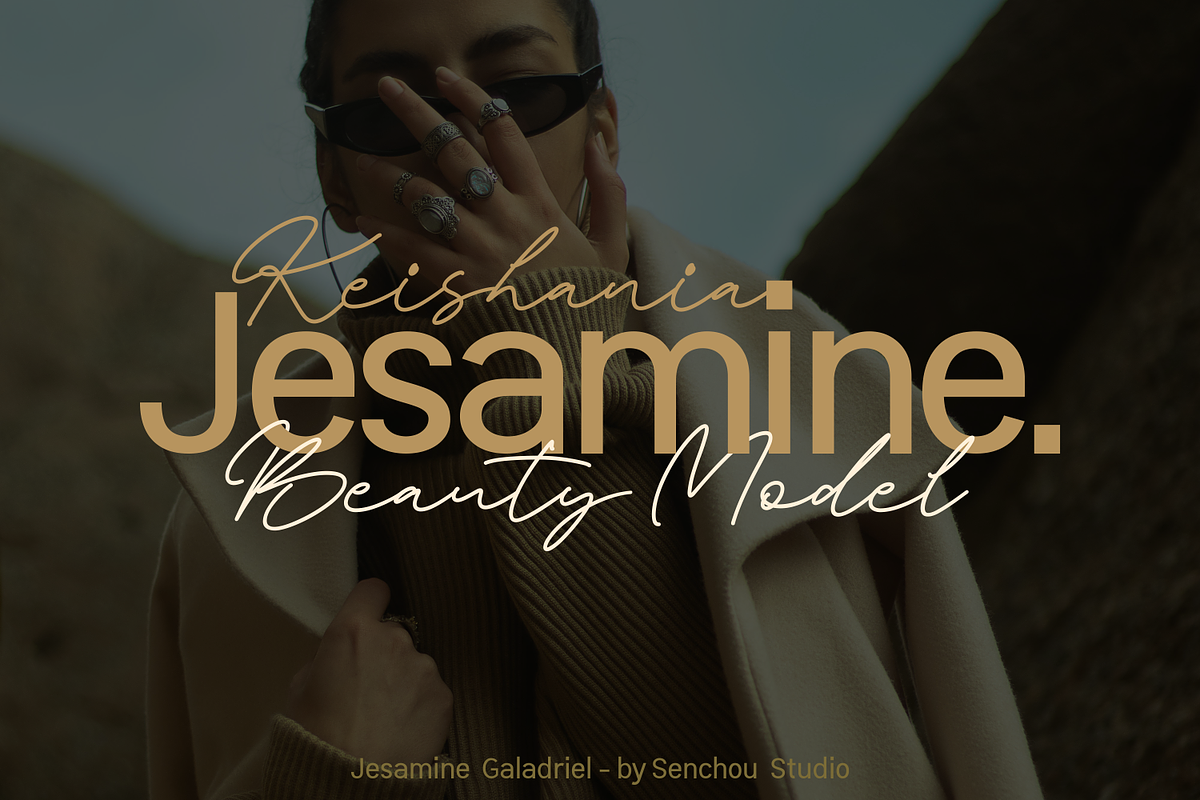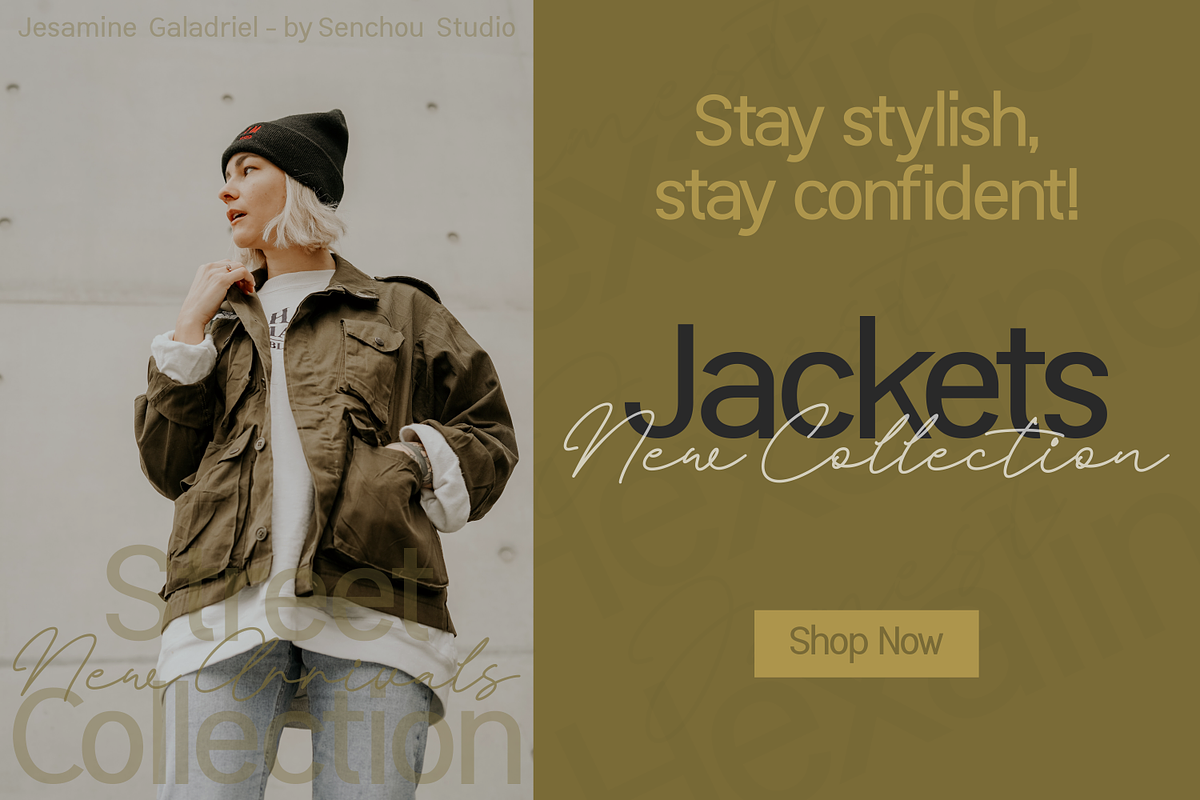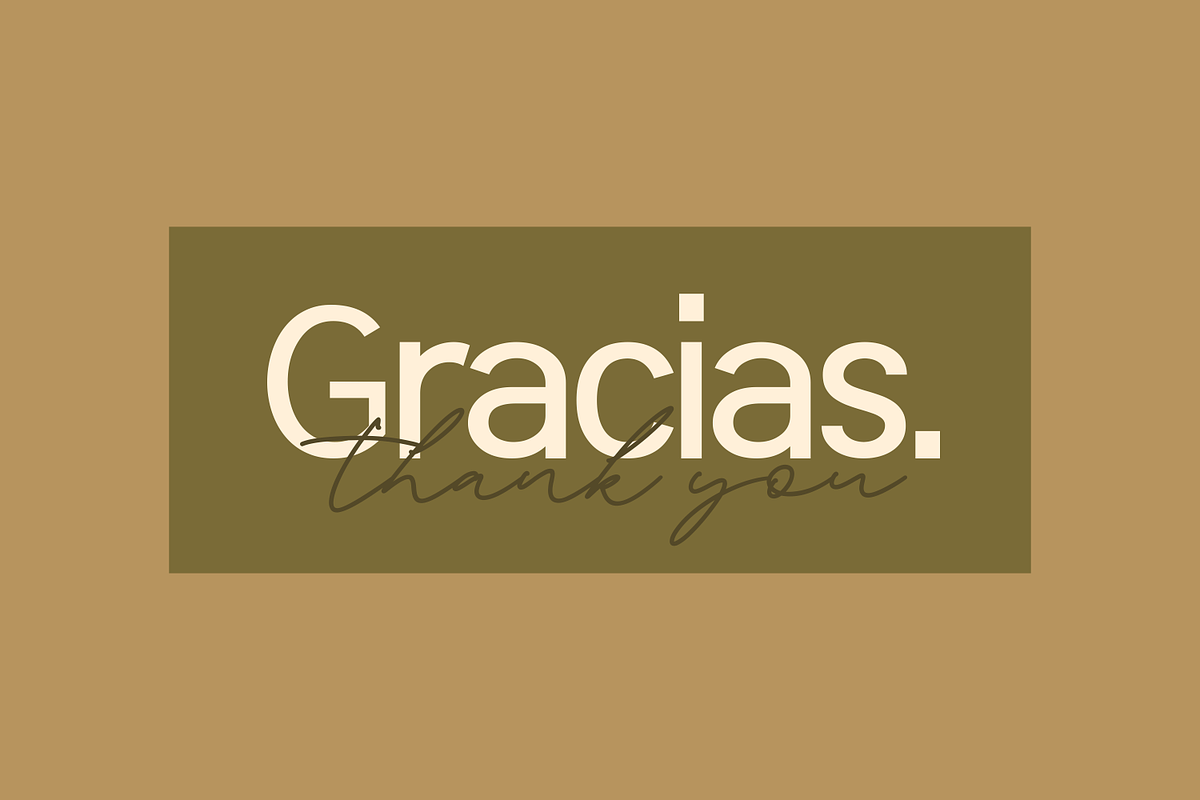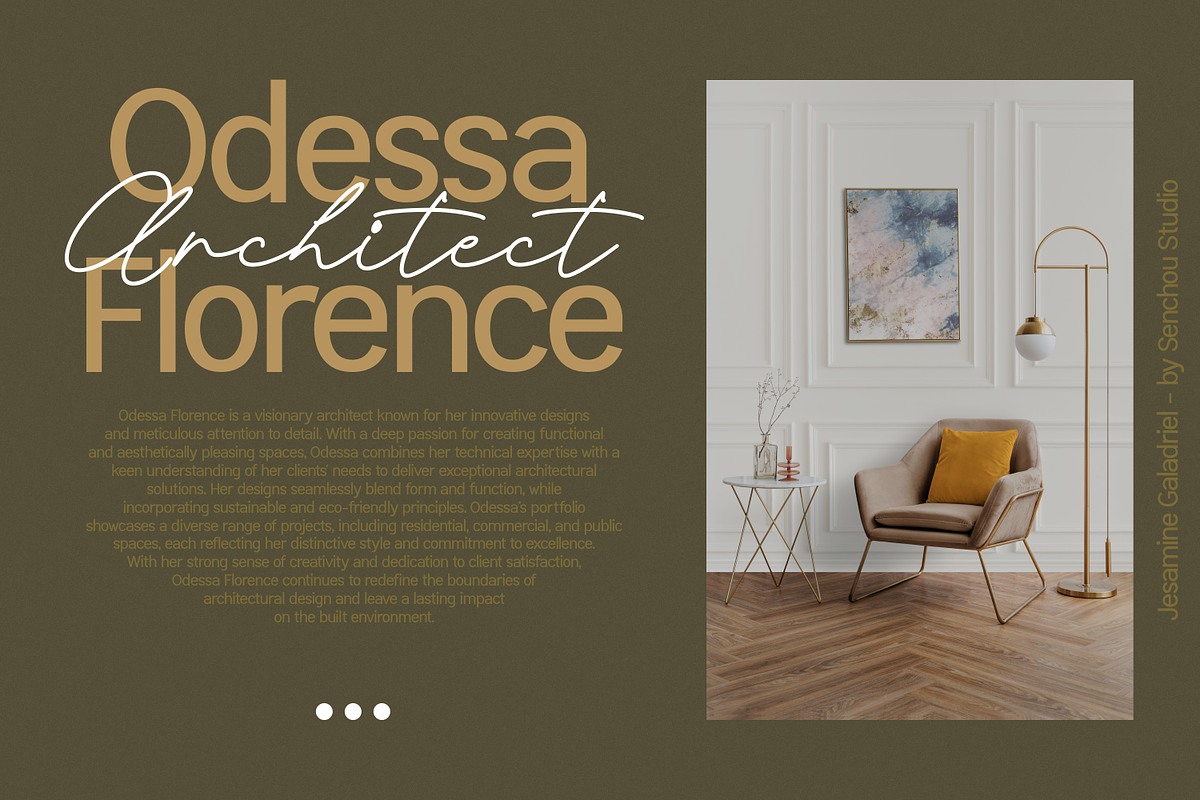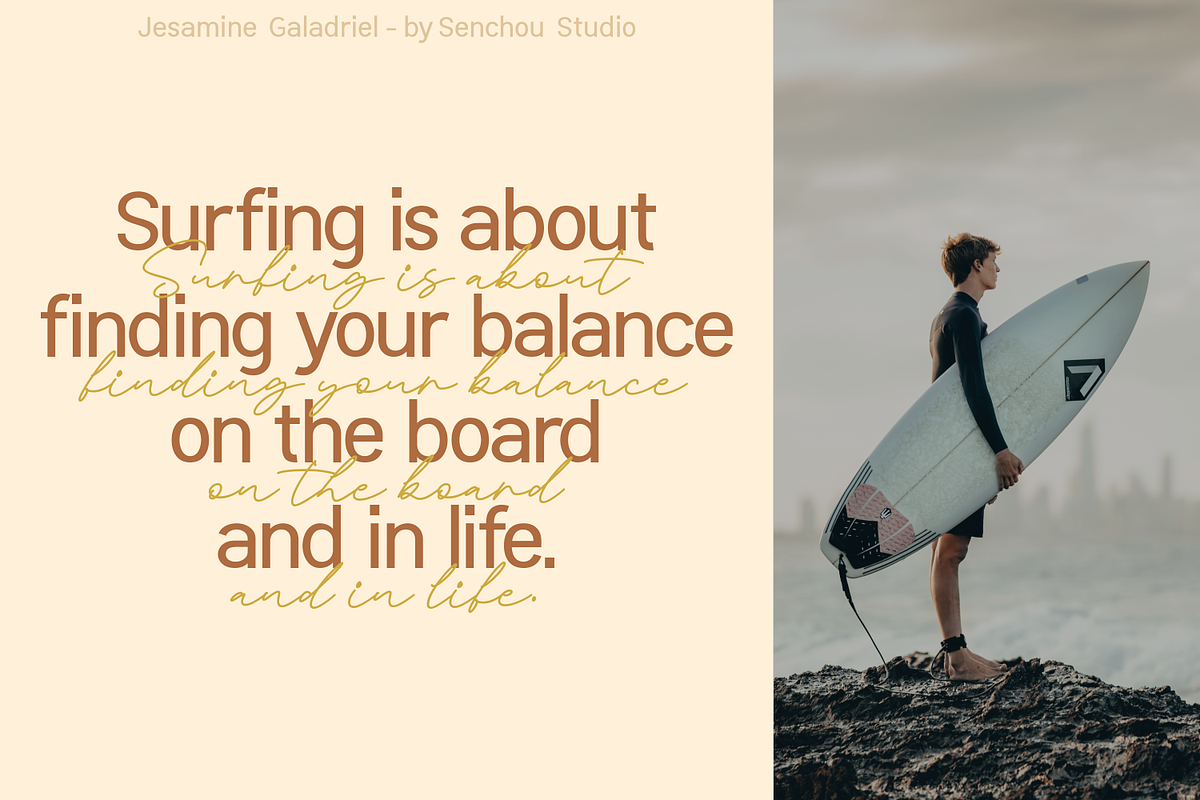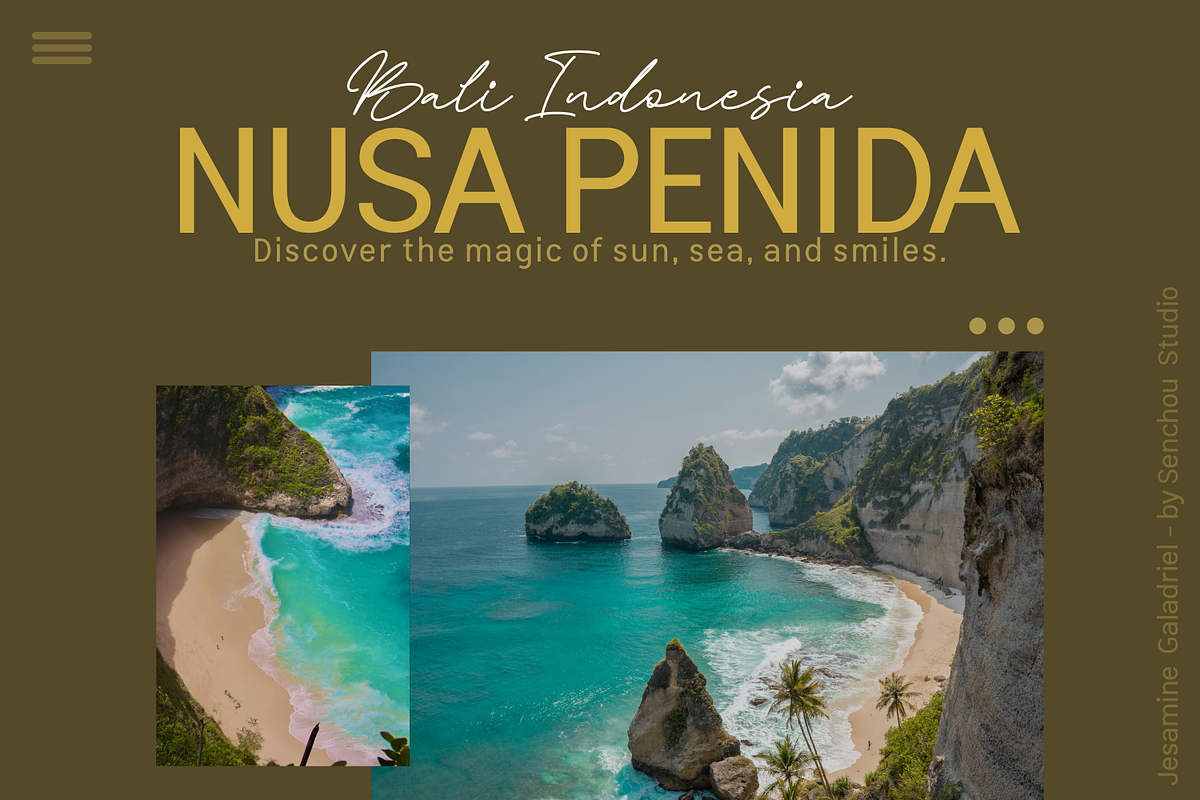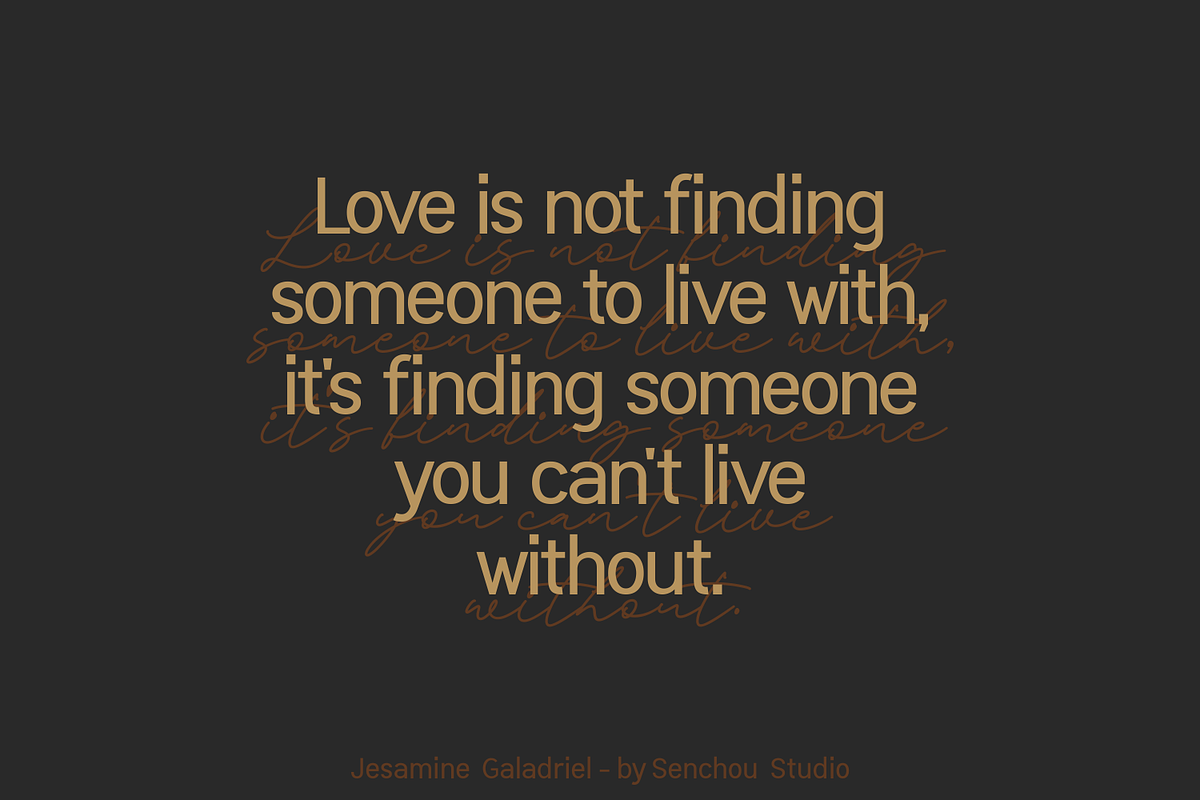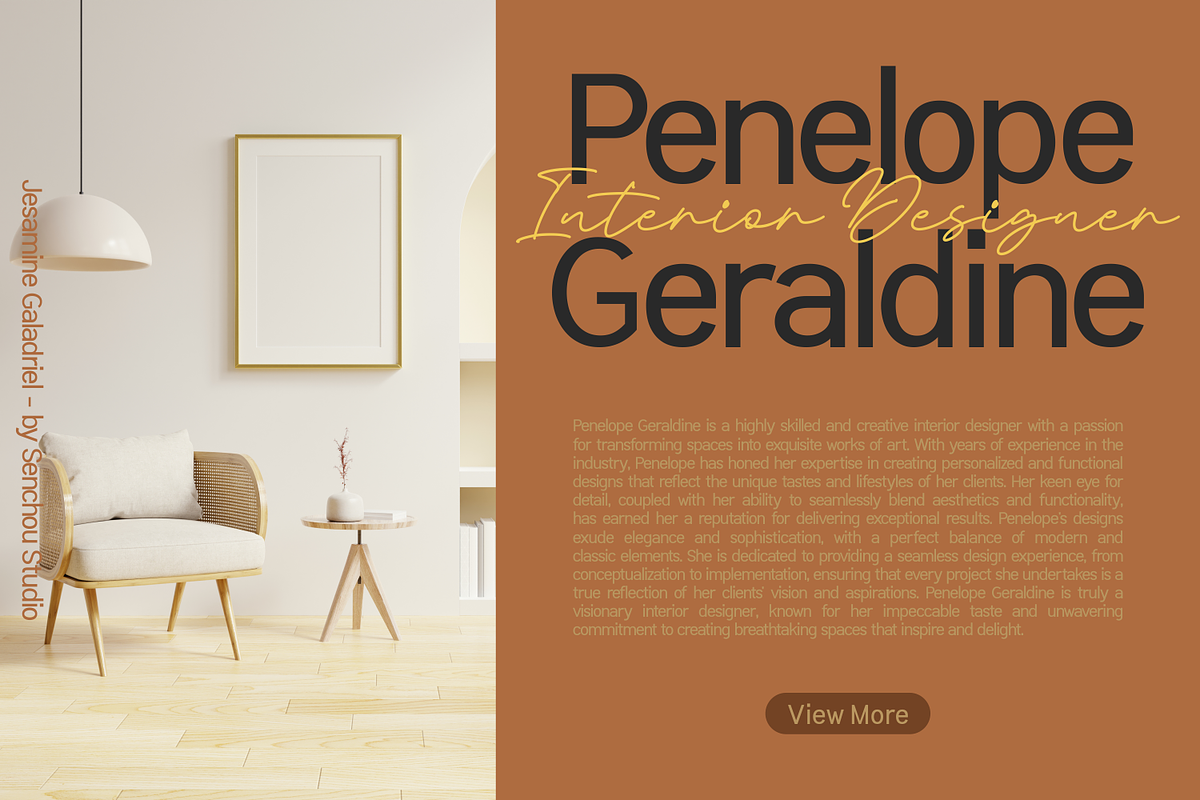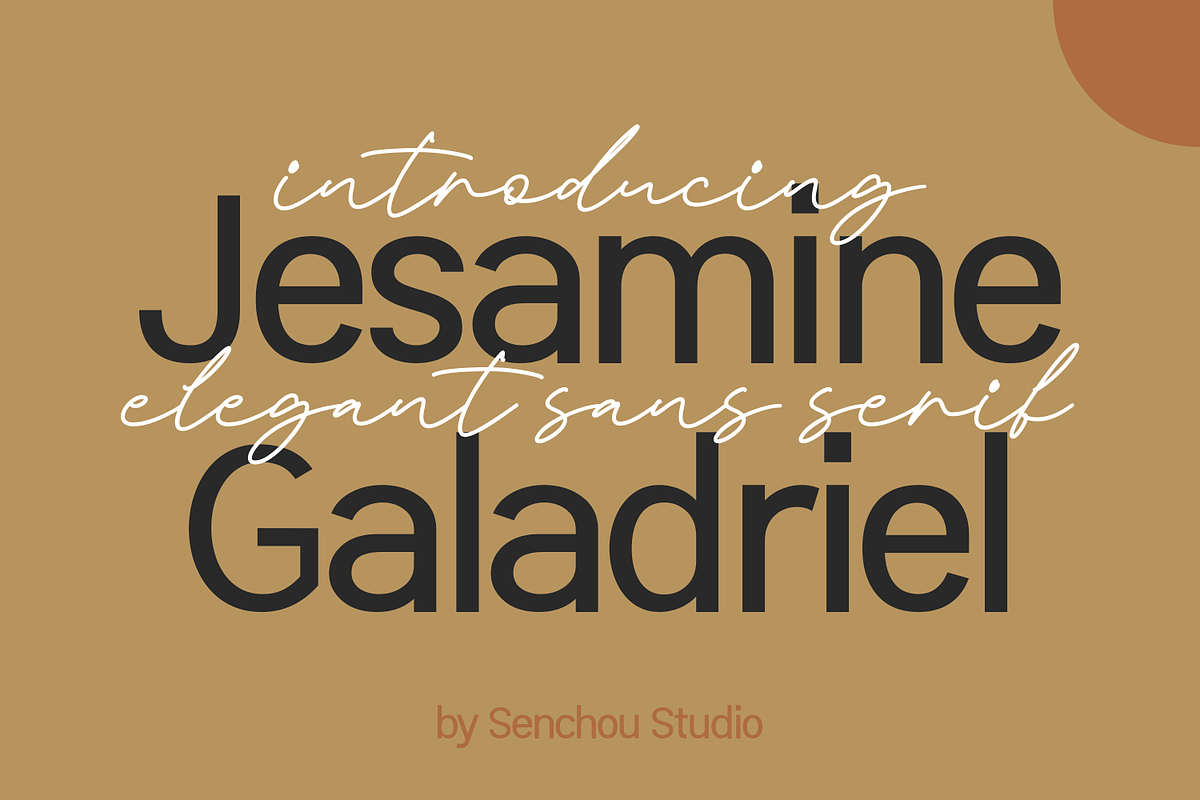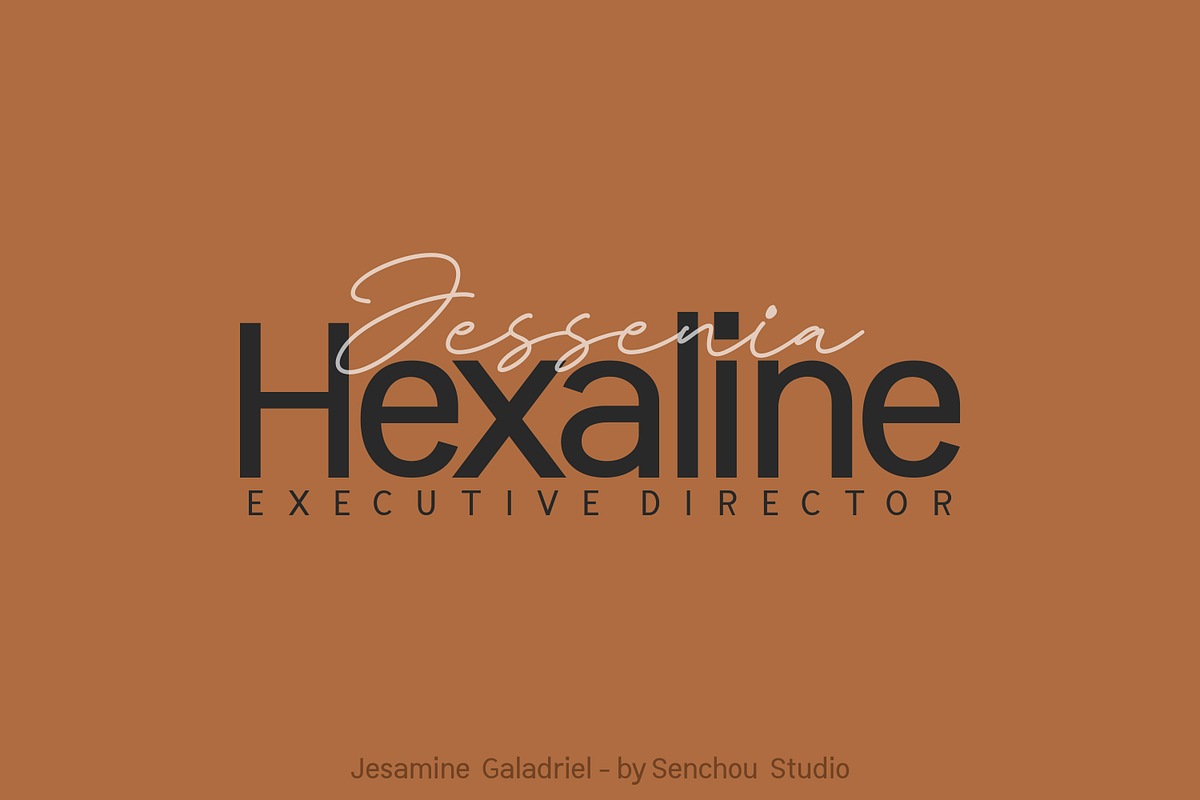
Jesamine Galadriel
Jesamine Galadriel is a captivating sans-serif font that effortlessly blends modernity with timeless elegance. Its exquisite design showcases a harmonious combination of sleek contours and refined details, reflecting a sense of sophistication and artistic flair. Whether in digital or print mediums, Jesamine Galadriel commands attention and adds a touch of luxury to any project. The meticulously crafted letterforms lend themselves to diverse applications, from logo designs to editorial layouts, ensuring versatility and creative freedom. With its enduring beauty, Jesamine Galadriel stands as the epitome of timeless aesthetics, making it an essential choice for designers seeking a font that embodies both contemporary style and refined elegance.